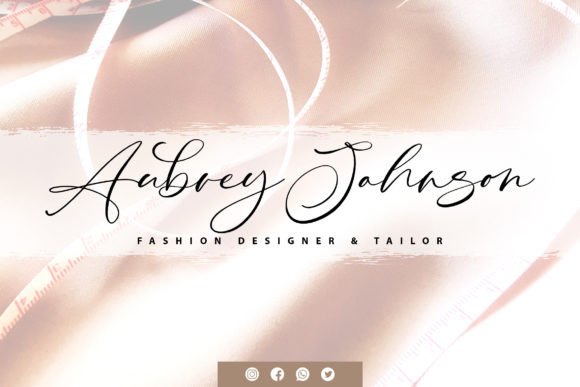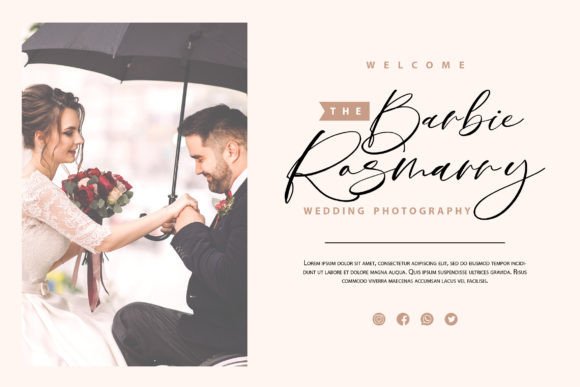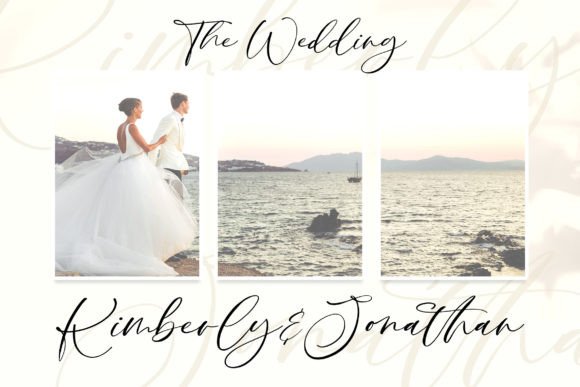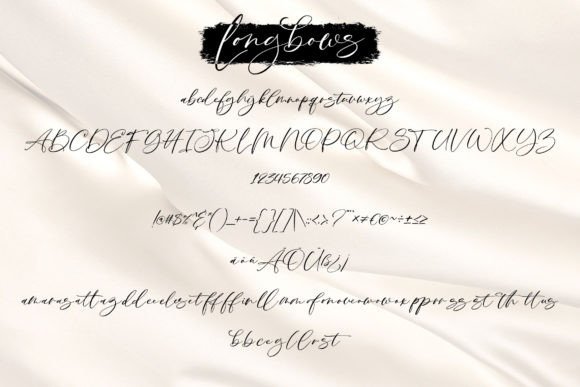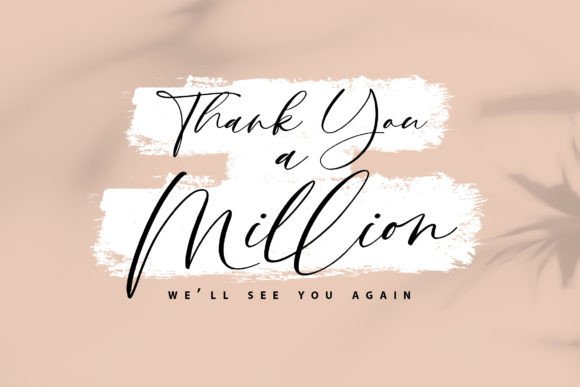
Introduction to Longbows Font
Do you ever find yourself staring at a blank canvas, trying to come up with the perfect design for your next creative project? The blank page can be intimidating, but sometimes all it takes is the right design resource to spark inspiration. For designers and artists, a high-quality font can be the key to unlocking a new level of creativity.
That’s where the Longbows Font comes in – a dazzling script font that’s sure to elevate any design project. With its neatly crafted and highly detailed design, this font is a valuable asset to any font library. Whether you’re working on a free download or a commercial project, the Longbows Font is the perfect choice to add a touch of elegance and sophistication.
Key Features of Longbows Font
- High-quality design resource ideal for creative projects, including graphic design, digital art, and more.
- Features a transparent background, allowing for easy layering and composition in design projects.
- Includes a comprehensive set of characters, including uppercase and lowercase letters, numbers, and punctuation marks.
- Designed with a high resolution of 300 DPI for crisp and clear display on various screens and devices.
- Unique, hand-drawn aesthetic with a mix of elegant and rustic elements, perfect for adding a touch of personality to your design project.
Honest Review: Longbows Font
I recently came across the Longbows Font, and I must say, it’s a great addition to any designer’s toolkit. The font’s unique style and creative flair make it perfect for a wide range of creative projects, from branding to editorial design.
Here are some of the things that work well with the Longbows Font:
- ✨ Unique and creative style that sets it apart from other fonts
- ✨ Versatile and suitable for a wide range of design projects
- ✨ High-quality design with intricate details
- ⚠️ Limited character set, which may not be ideal for extensive text-based designs
- ⚠️ May not be suitable for formal or professional designs due to its playful style
Overall, I’m impressed with the Longbows Font. Its unique style and high-quality design make it a valuable resource for designers. While it may have some limitations, it’s definitely worth checking out for any creative project that requires a bold and eye-catching font.
Tips for Getting the Most Out of Longbows Font
To get the most out of Longbows Font, use it for creative projects that require a unique and high-quality font. This font is perfect for designs with a transparent background, such as flyers, posters, and social media graphics.
Longbows Font is commonly used in a variety of designs, including: logo designs, branding materials, and advertising campaigns. Its unique style and high quality make it a popular choice among designers.
Comparison to Longbows Font: Great Vibes Font has a more elegant and refined feel compared to Longbows Font, which has a more playful and casual vibe.